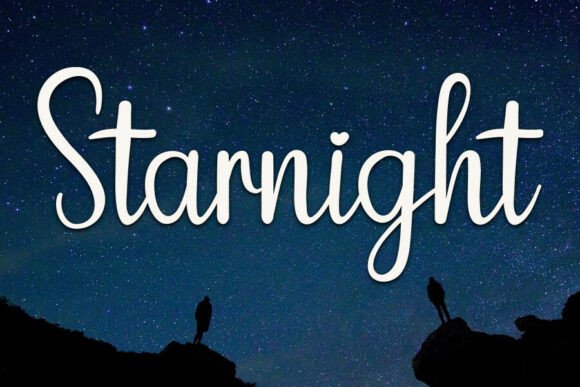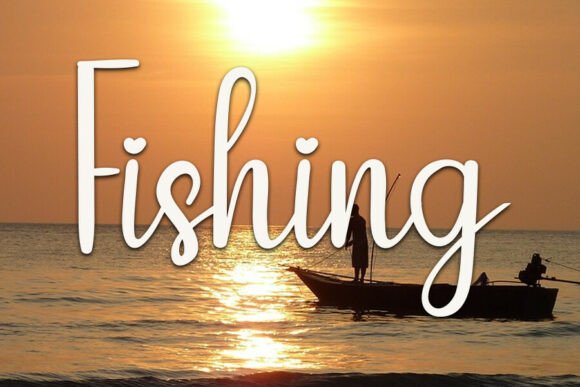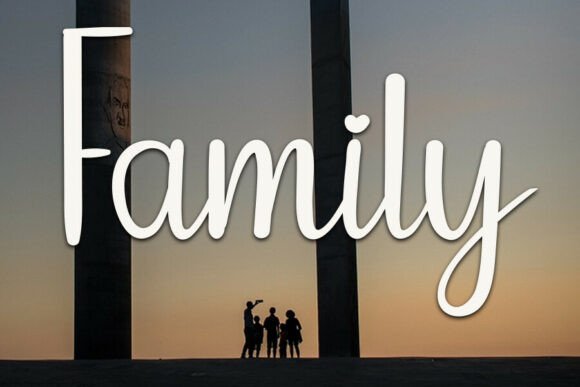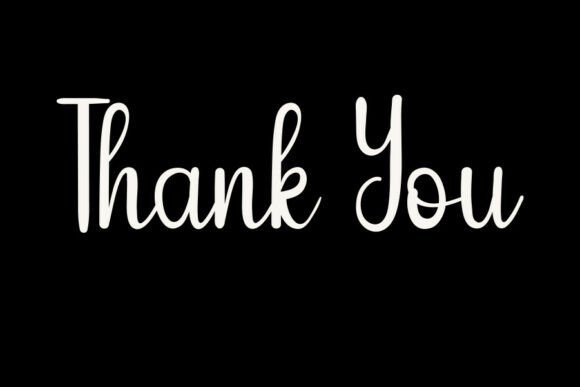
Introduction to Salty Font
As a designer, you’ve likely experienced that moment of creative block where you’re staring at a blank page, waiting for inspiration to strike. For me, it was a late-night craving for homemade cookies that sparked the idea to explore the perfect font for bakery branding – and that’s where the Salty Font comes in. This charming, handwritten font is more than just a design element; it’s a key to adding a personal touch to your creative project.
With its friendly and casual feel, the Salty Font is an invaluable design resource for any project that needs a high-quality, handcrafted look. Whether you’re working on a food blog, birthday invitation, or any other creative endeavor, this font is sure to elevate your design and make it stand out. And the best part? It’s available for free download, making it an accessible and convenient addition to your design arsenal.
Key Features of Salty Font
- High-quality, unique font design perfect for creative projects and design resources.
- Includes 4 different font styles: Regular, Italic, Bold, and Bold Italic.
- Perfect for use in graphic design, digital art, and other creative pursuits where a unique and stylish font is desired.
Honest Review: Salty Font
I recently stumbled upon Salty Font, a free download that has the potential to elevate my creative projects to the next level. As a designer, I’m always on the lookout for high-quality design resources that can help me stand out.
Here are a few things that work well with Salty Font: ✨ Unique typography: The font has a distinct, bold style that can add a touch of personality to any design. ✨ Transparent background: This allows for seamless integration into various design elements. ✨ Versatility: The font is suitable for a wide range of creative projects, from logos to social media graphics.
However, there are a few limitations to consider: ⚠️ Limited character set: The font only includes a limited set of characters, which may not be suitable for complex texts. ⚠️ Not ideal for body text: While Salty Font is perfect for headings and titles, it may not be the best choice for body text due to its bold style.
Overall, I’m impressed with Salty Font, and I think it can be a valuable addition to any designer’s toolkit. With a little creativity, you can use it to create stunning designs that make a lasting impression.
For optimal results, use the Salty Font in conjunction with a high-quality image or graphic. This font is particularly useful for creating eye-catching titles, headings, and captions. You can also use it to add a touch of personality to your social media graphics or marketing materials.
Is Salty Font suitable for large-scale designs?
Salty Font is designed to be scalable, making it suitable for use in large-scale designs, such as billboards, posters, and other print materials. However, please note that the font’s legibility may be affected at very small or very large sizes, and it’s always best to test the font in different contexts to ensure optimal results.